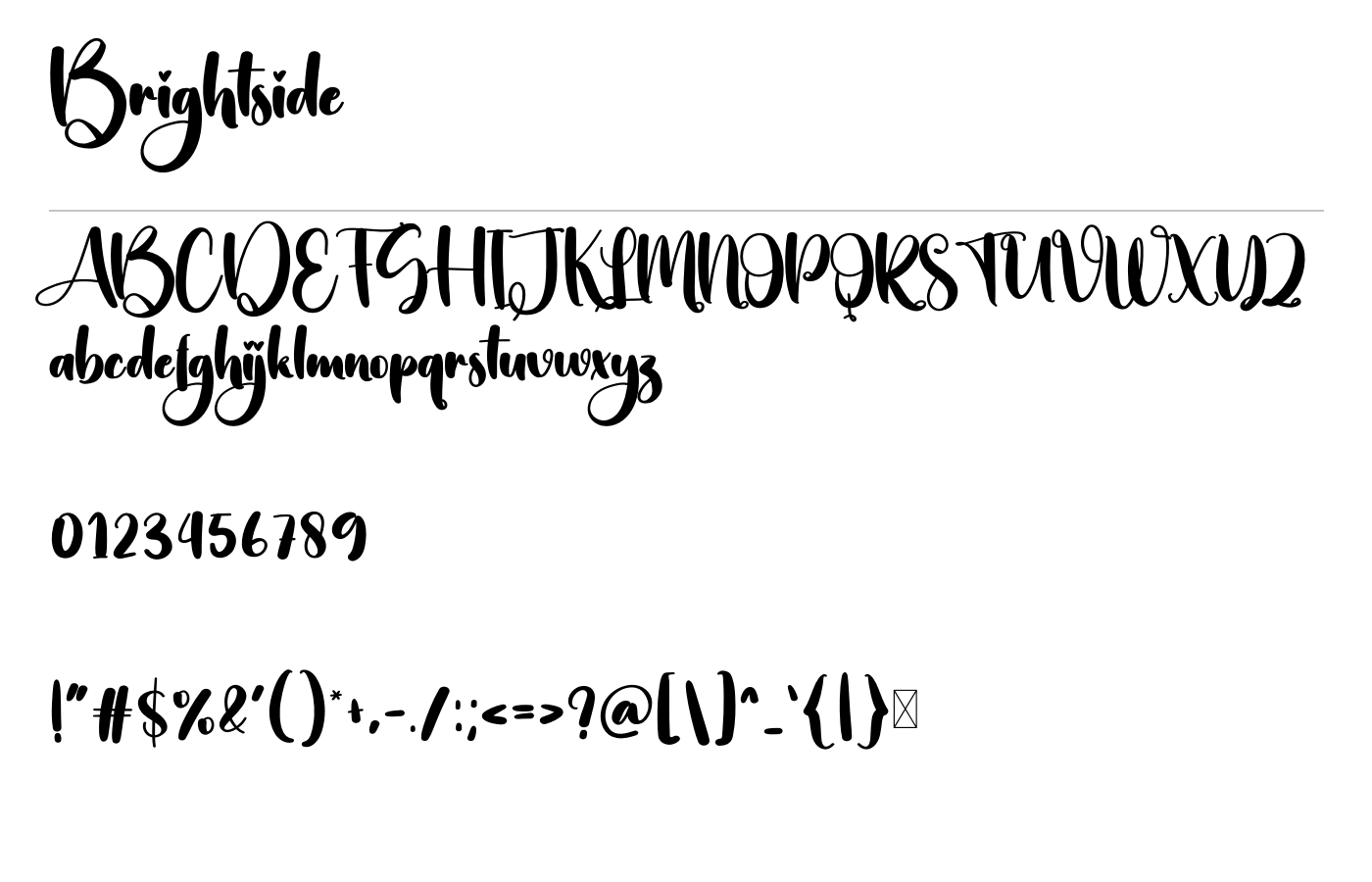
Brightside is a playful and lively script font with a hand-drawn feel, featuring bold, flowing strokes and charming flourishes that give it a warm, friendly personality. This font is perfect for creative branding, invitations, and packaging where a casual yet stylish touch is desired. Its expressive letterforms and clear readability make it ideal for headlines or display use in projects that want to convey joy and approachability.
Brightside Font
About Brightside Font